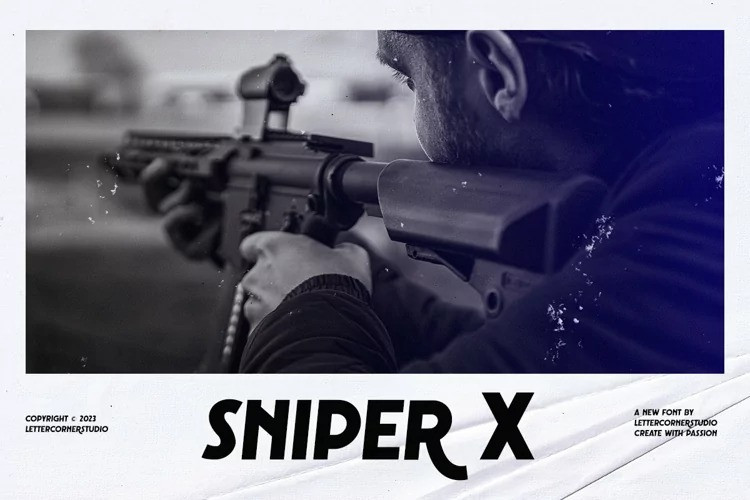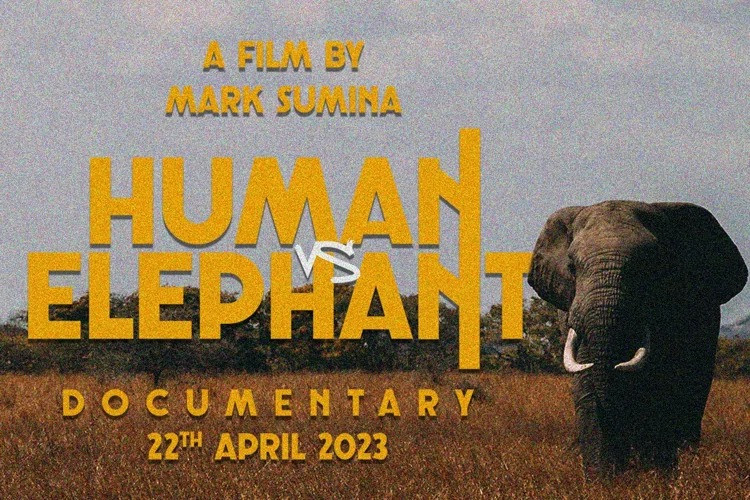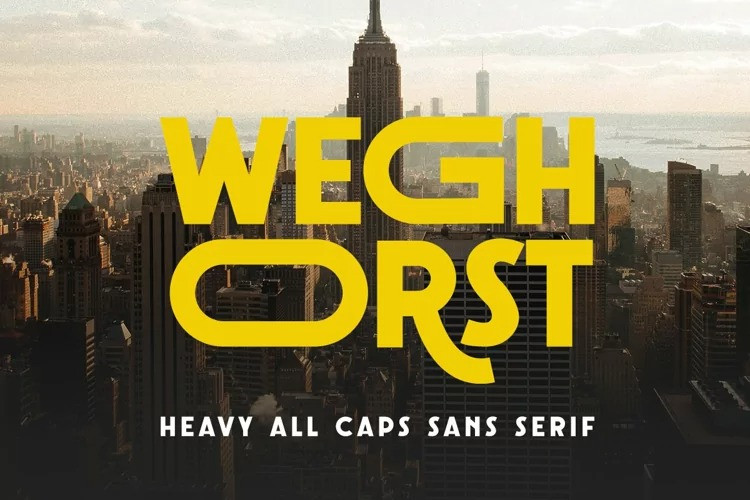
Weghorst Font
Weghorst Sans Serif Font,  It can easily be matched to an incredibly large set of projects, so add it to your creative ideas and notice how it makes them stand out!